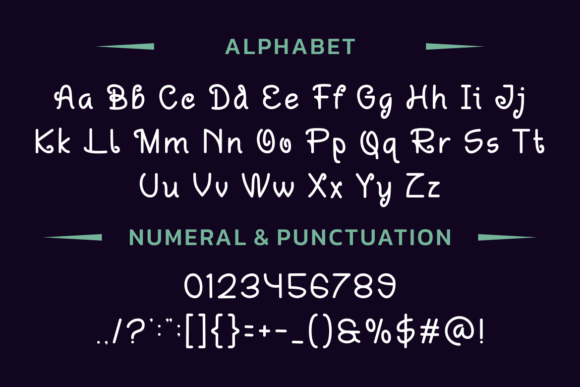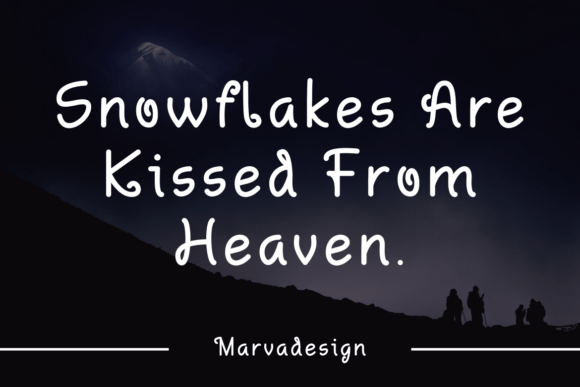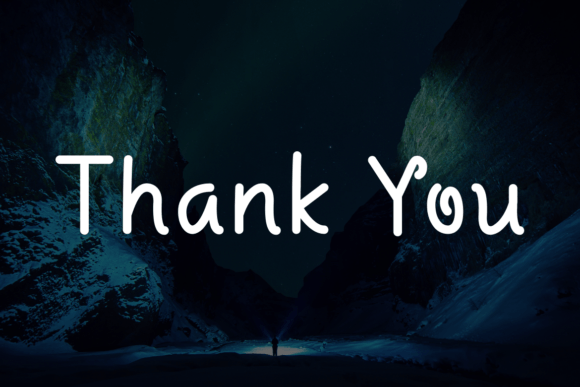
Introduction to Snow Jungle Font
Remember that moment when you’re brainstorming ideas for your next creative project and you stumble upon the perfect font to bring your vision to life? That’s exactly what happened to me when I discovered the Snow Jungle Font. Its unique, handwritten style immediately captured my attention, and I couldn’t wait to incorporate it into my design.
As a designer, I’m always on the lookout for high-quality design resources that can elevate my work. The Snow Jungle Font is more than just a pretty face; it’s a valuable addition to any designer’s toolkit. With its transparent background and versatile style, this font is perfect for everything from digital design and presentations to crafts and greeting cards.
Key Features of Snow Jungle Font
- Unique and creative design for your project: The Snow Jungle Font is a perfect design resource for your next creative project, offering a distinctive and eye-catching aesthetic.
- High-quality font with transparent background: This font features a transparent background, making it easy to use on various backgrounds and designs.
- Large character set: This font includes a large character set, including uppercase and lowercase letters, numbers, and punctuation marks, making it suitable for a wide range of applications.
- High-resolution design: The Snow Jungle Font is designed at 300 DPI, ensuring high-quality output and crisp text even when scaled up or down.
- Perfect for winter or nature-themed projects: The Snow Jungle Font’s unique design makes it an ideal choice for winter or nature-themed projects, adding a touch of whimsy and wonder to your creative work.
Honest Review: Snow Jungle Font
I recently came across the Snow Jungle Font and was excited to try it out for my creative project. As a designer, I’m always on the lookout for unique and high-quality design resources to add some flair to my work.
- ✨ High-quality design that’s perfect for winter-themed projects or anything that requires a touch of the outdoors.
- ✨ The font is highly customizable and can be easily edited to fit the needs of your project.
- ⚠️ The font may not be suitable for projects that require a transparent background, as it can be a bit grainy and lose some of its detail.
- ⚠️ Some of the characters may not be as detailed as others, which can be a bit of a letdown for designers who are looking for perfection.
Overall, I’d say the Snow Jungle Font is a great addition to any designer’s toolkit. It’s perfect for those who want a unique and eye-catching font without breaking the bank. With a little creativity and editing, this font can be used to create some truly amazing designs.
The Snow Jungle Font is a high-quality, unique design resource perfect for creative projects. With a transparent background, this font allows for endless design possibilities.
Tips for Getting the Most Out of Snow Jungle Font
Use the Snow Jungle Font in combination with other design elements to create a cohesive and visually appealing design. Experiment with different font sizes, colors, and arrangements to achieve the desired effect.
The Snow Jungle Font is ideal for creative projects, including:
- Winter-themed designs
- Outdoor and adventure-related projects
- Unique and eye-catching presentations